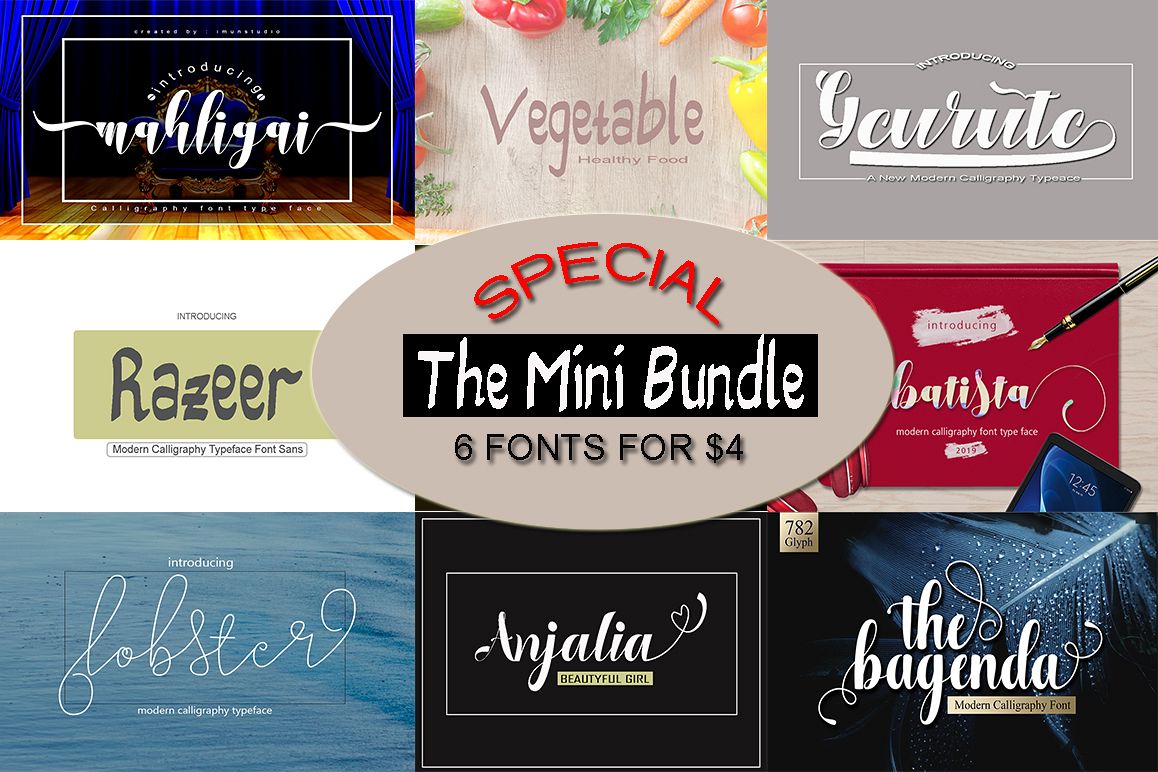
The Mini Bundle
This a The Mini Bundle has 6 item unique fonts, you can get yourself 6 hand drawn script fonts in one magnificent swirl of a deal. Mixing the classic with the modern, these breathtaking brush fonts are just perfect for everything from wedding invitations to logos to T-shirts! Toss in loads of OpenType features such as swashes, Initial and Terminals Forms, and standard ligatures, and the possibilities are endless.
With an assortment of OpenType features including Standard Ligatures, Stylistic Alternates and Stylistic Sets, your latest project will really stand out with a real natural, elegant script style.